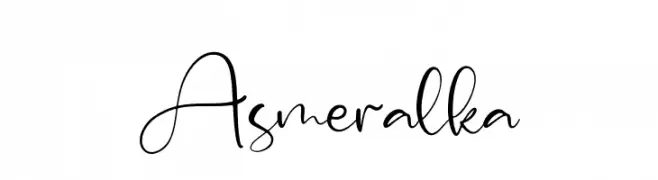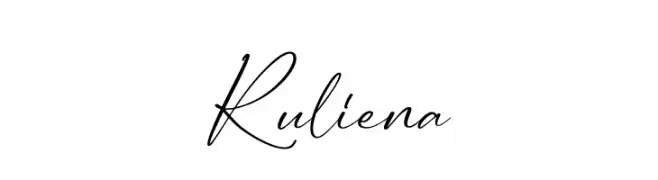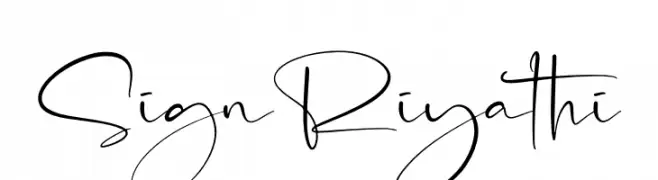
A playful, whimsical script font with a handwritten feel and charming embellishments.
A graceful and fluid script font with elegant, connected strokes.
A refined, cursive script font with elegant, flowing lines.
A sophisticated, elegant handwritten script with fluid, continuous strokes.
A playful and casual handwritten font with flowing, connected strokes.
A flowing, cursive font with elegant loops and a handwritten style.
A dynamic and expressive handwritten font with fluid, interconnected strokes.
A lively and dynamic handwritten font with fluid, expressive strokes.
An elegant, flowing script font with a natural handwritten style.
A casual, handwritten font with fluid strokes and a dynamic appearance.